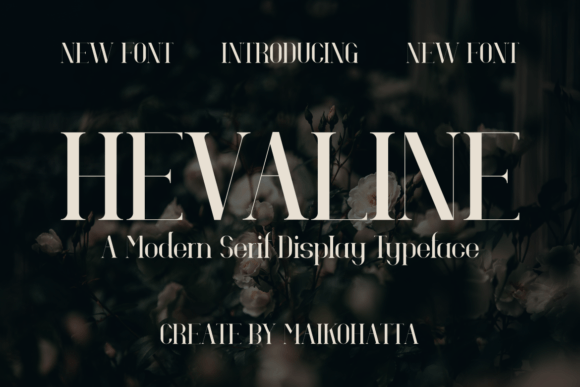
Introducing Hevaline Font, a Treasure Trove of Typographic Elegance
Embark on a typographic odyssey with Hevaline Font, a serif masterpiece that weaves together grace and precision. Each letter, meticulously crafted with balanced proportions and impeccable alignment, elevates your designs to new heights of sophistication.
Unleash the Power of Hevaline Font for Video Companies
Hevaline Font is the ultimate choice for video companies seeking to leave a lasting impression. Its striking presence commands attention, ensuring your videos captivate audiences from the very first frame. Create captivating titles, mesmerizing animations, and visually stunning graphics that resonate with your viewers.
Elevate Your Print Designs with Hevaline Font
Hevaline Font's versatility extends beyond the digital realm, gracing print designs with its timeless elegance. Craft brochures, flyers, posters, and magazines that exude professionalism and refinement. Let Hevaline Font's sharp lines and graceful curves elevate your words, leaving an indelible mark on your readers.
A Font for Every Occasion: Versatility Personified
Hevaline Font shines in a myriad of contexts, seamlessly adapting to your creative vision. Whether you seek to craft elegant logos, captivating social media graphics, or eye-catching website designs, Hevaline Font delivers. Its versatility knows no bounds, making it an essential tool in your creative arsenal.
Experience the Hevaline Font Difference
Hevaline Font is not merely a collection of letters; it's an investment in your creative endeavors. Its timeless beauty and unwavering quality will elevate your designs, leaving a lasting impression on your audience. Embrace the power of Hevaline Font today and unlock a world of typographic possibilities.